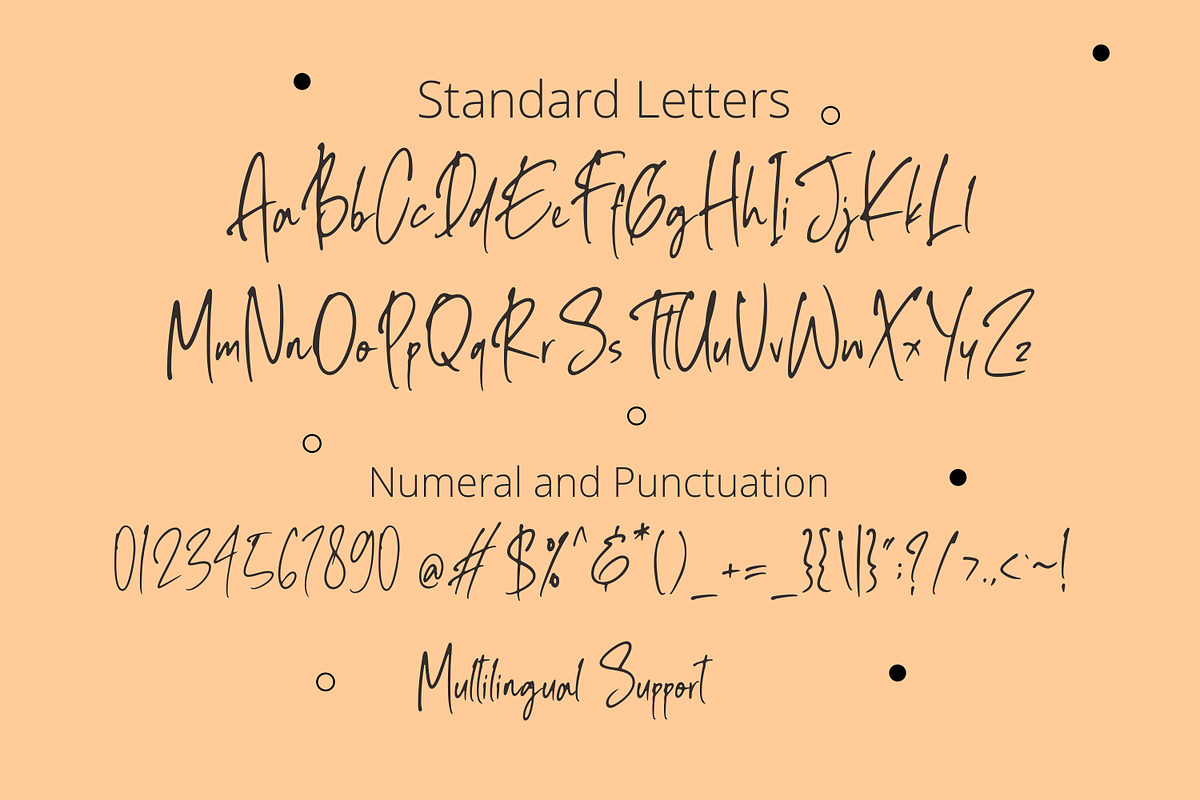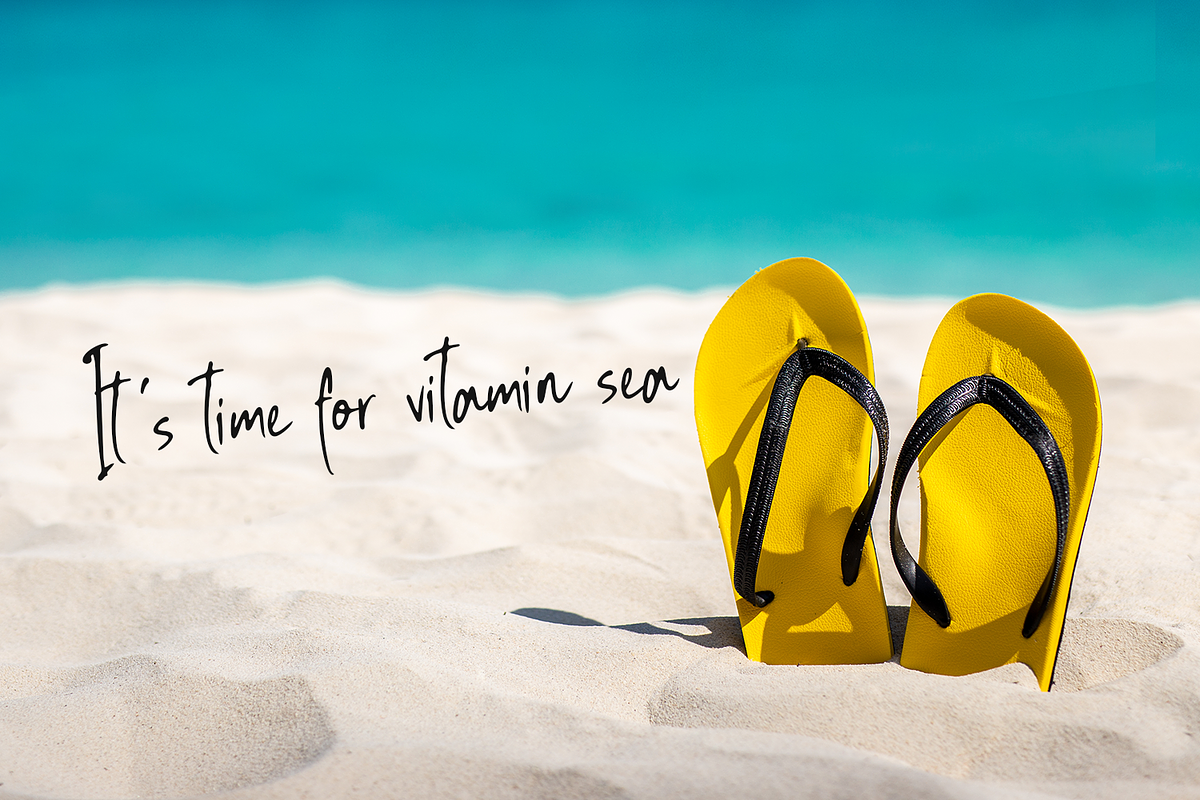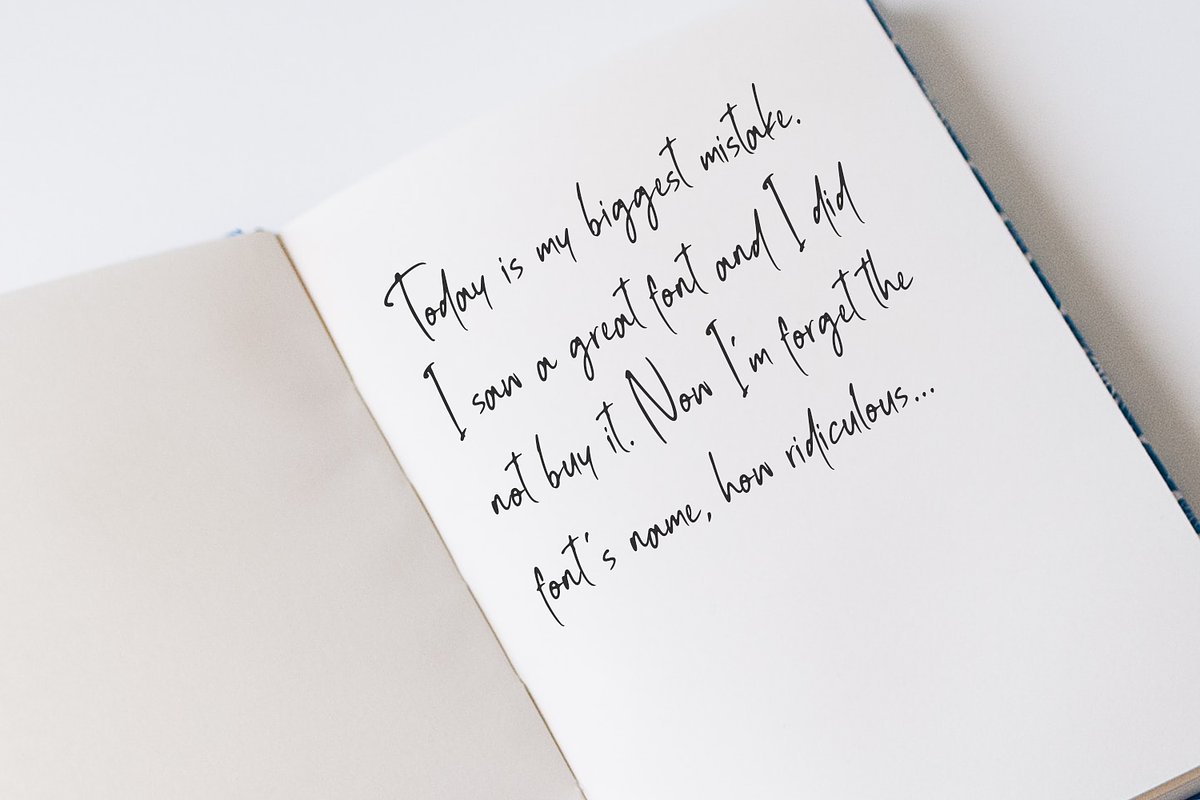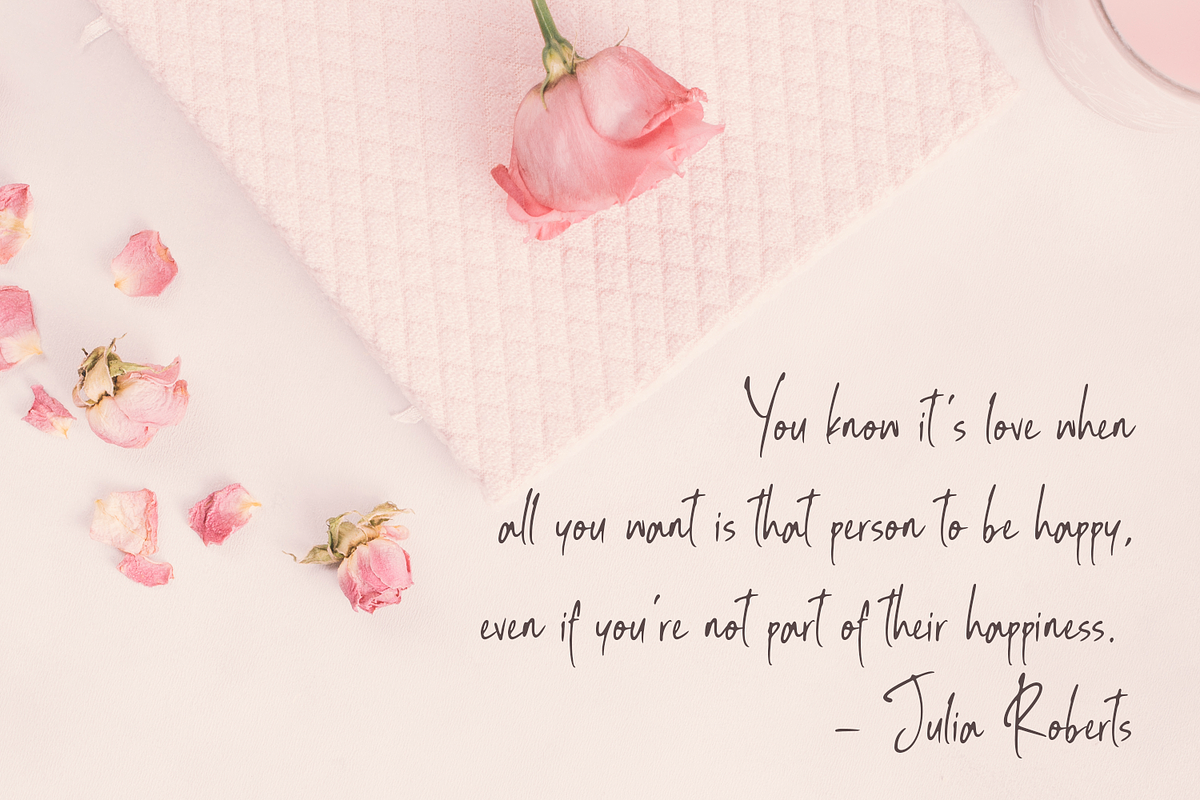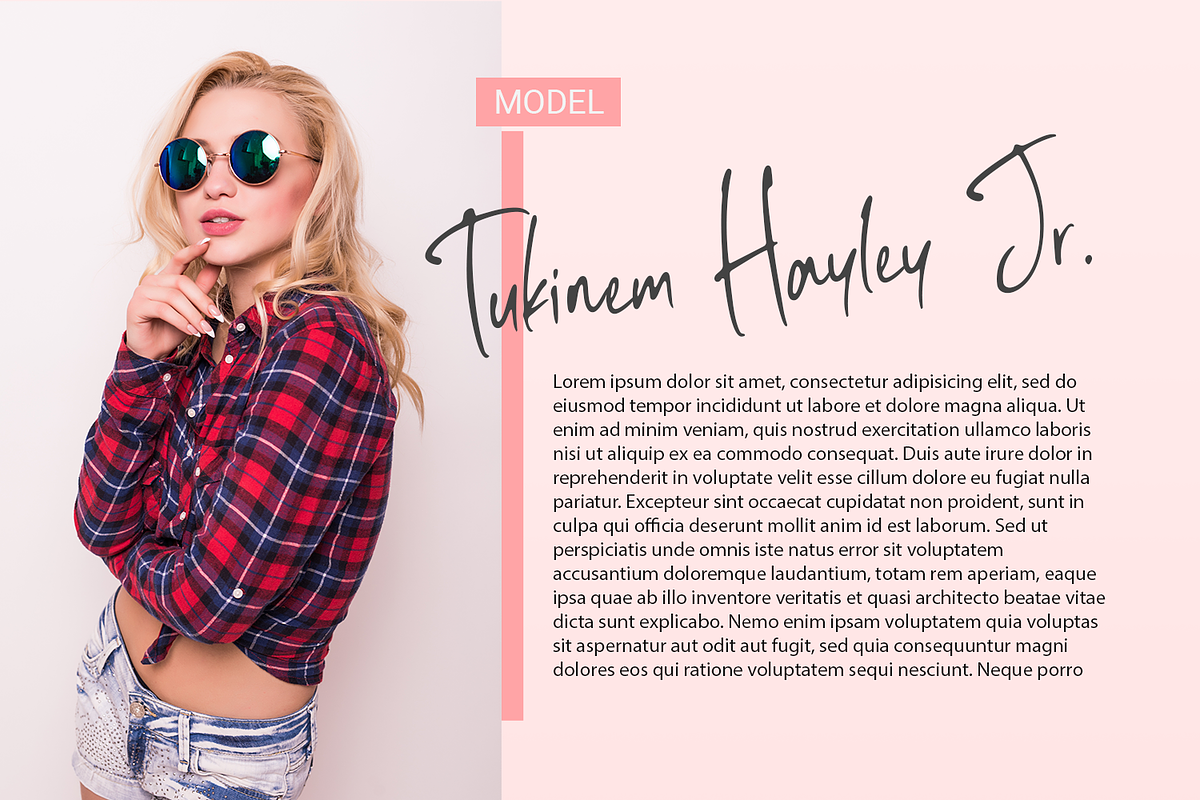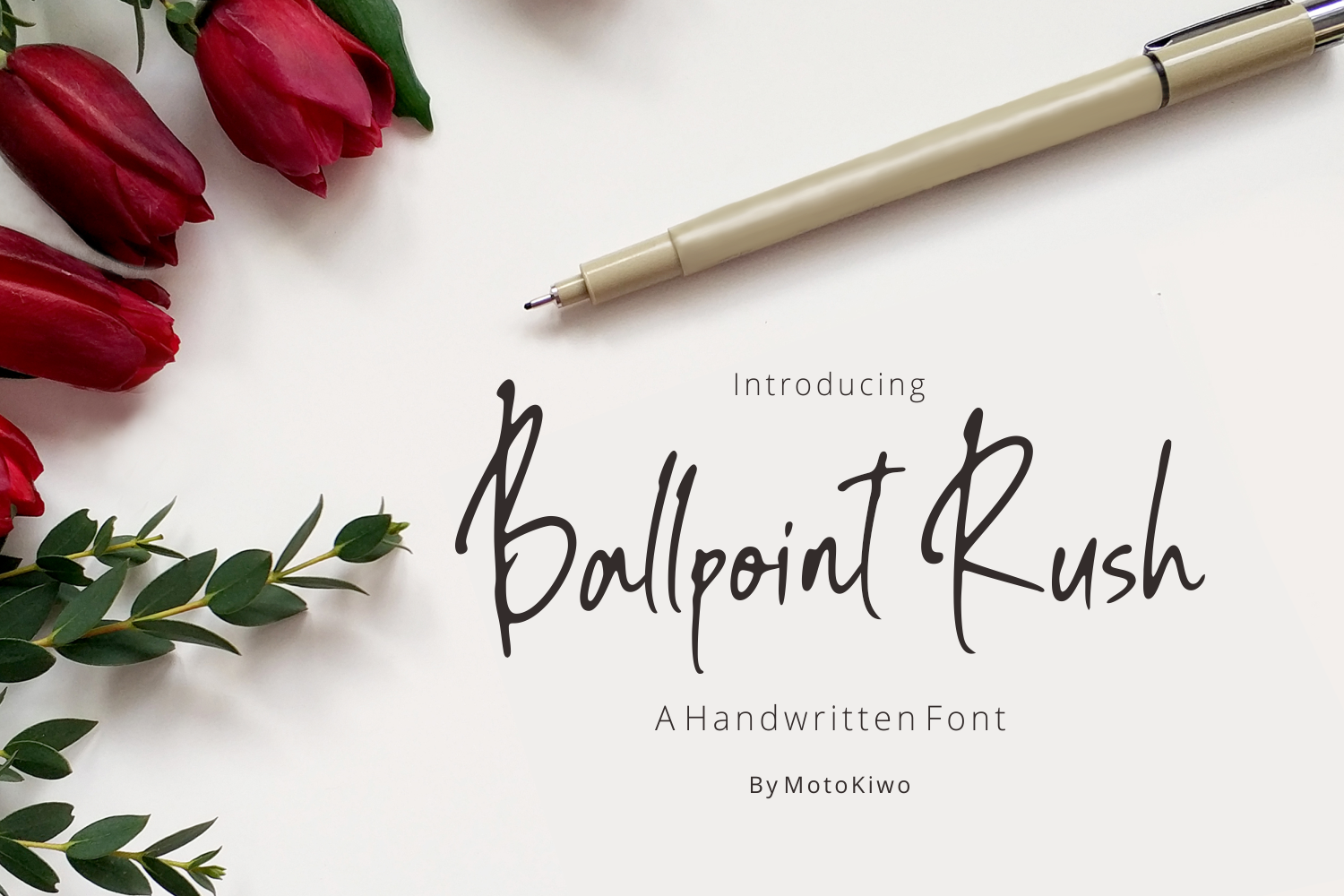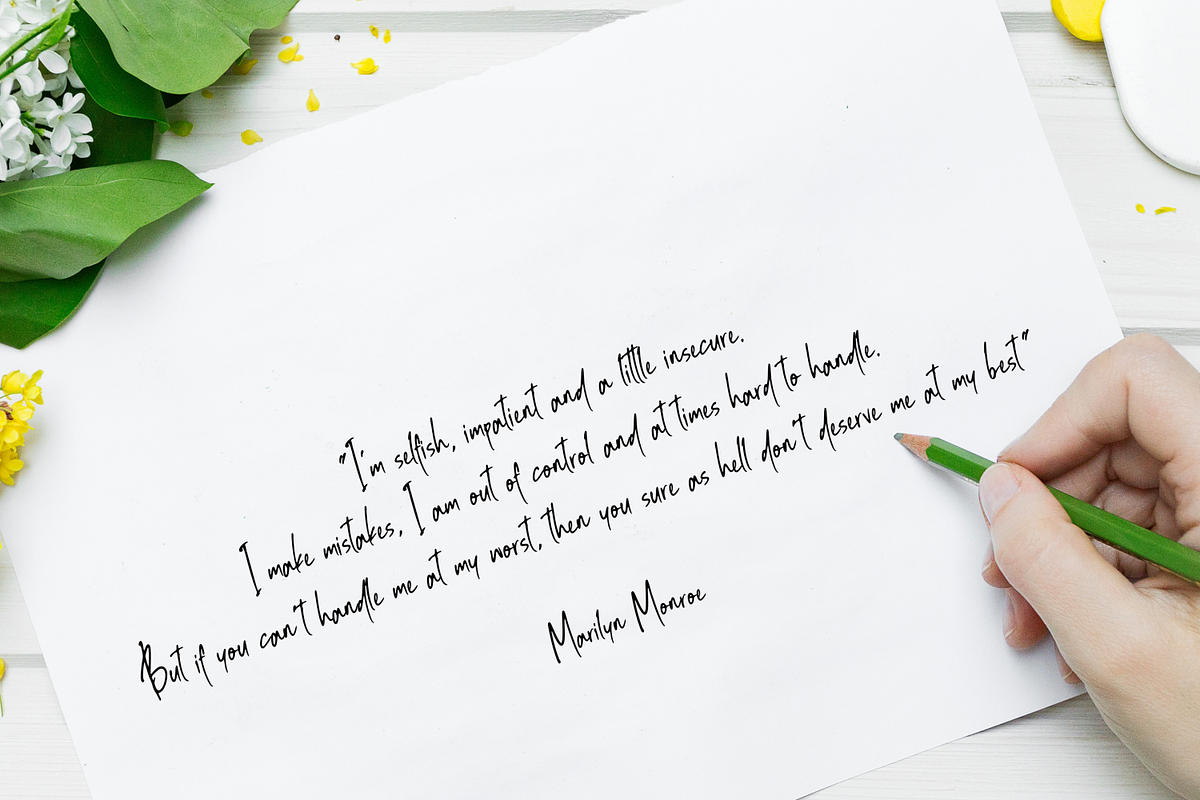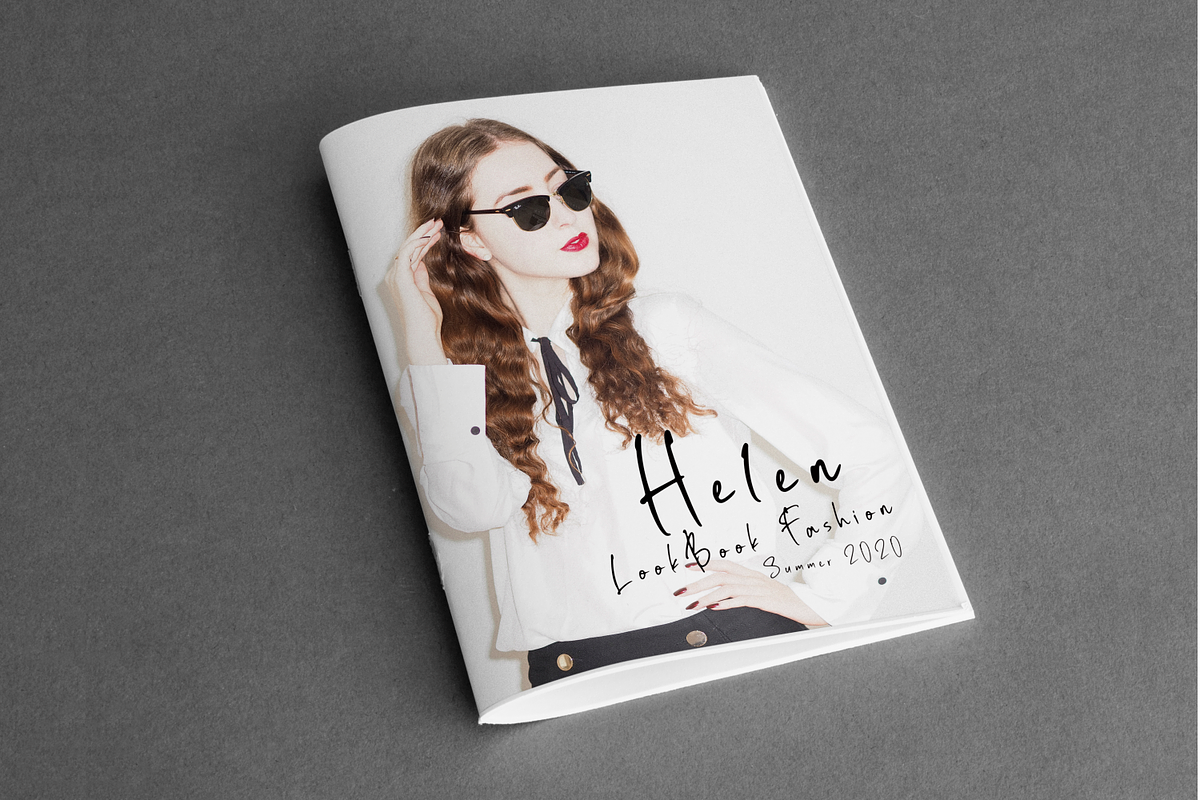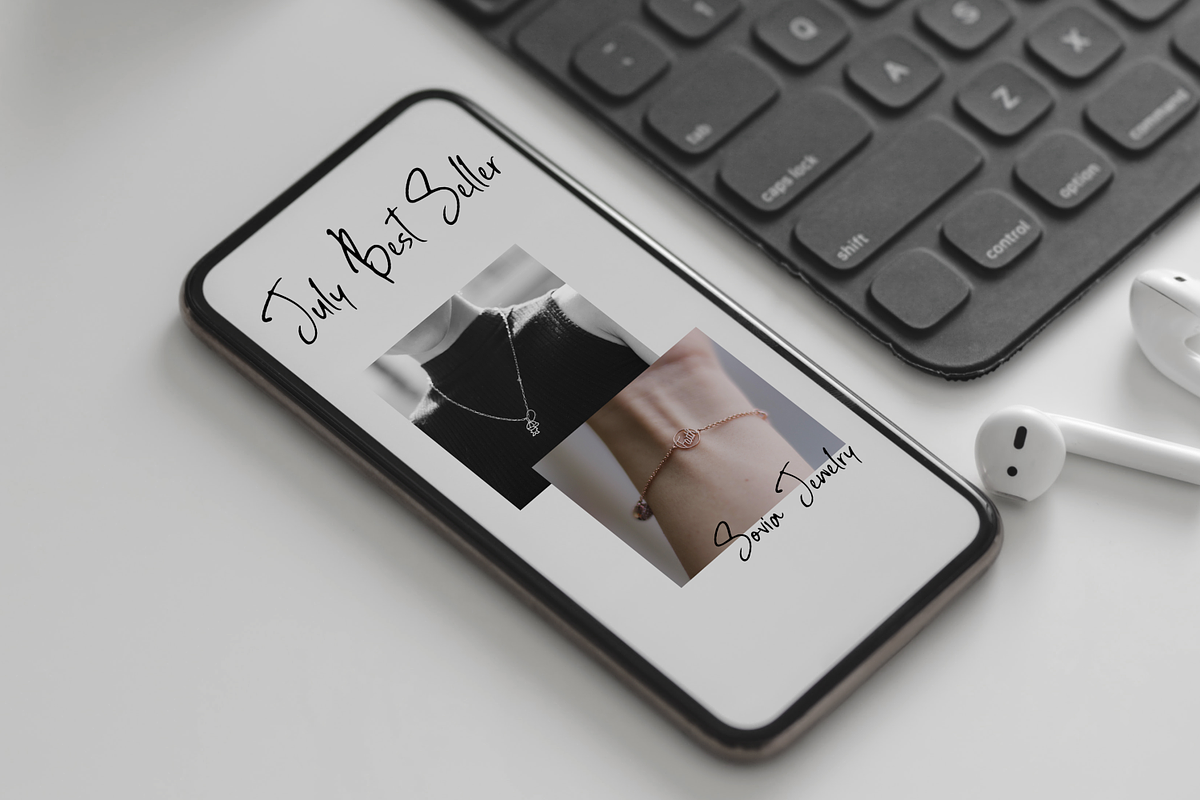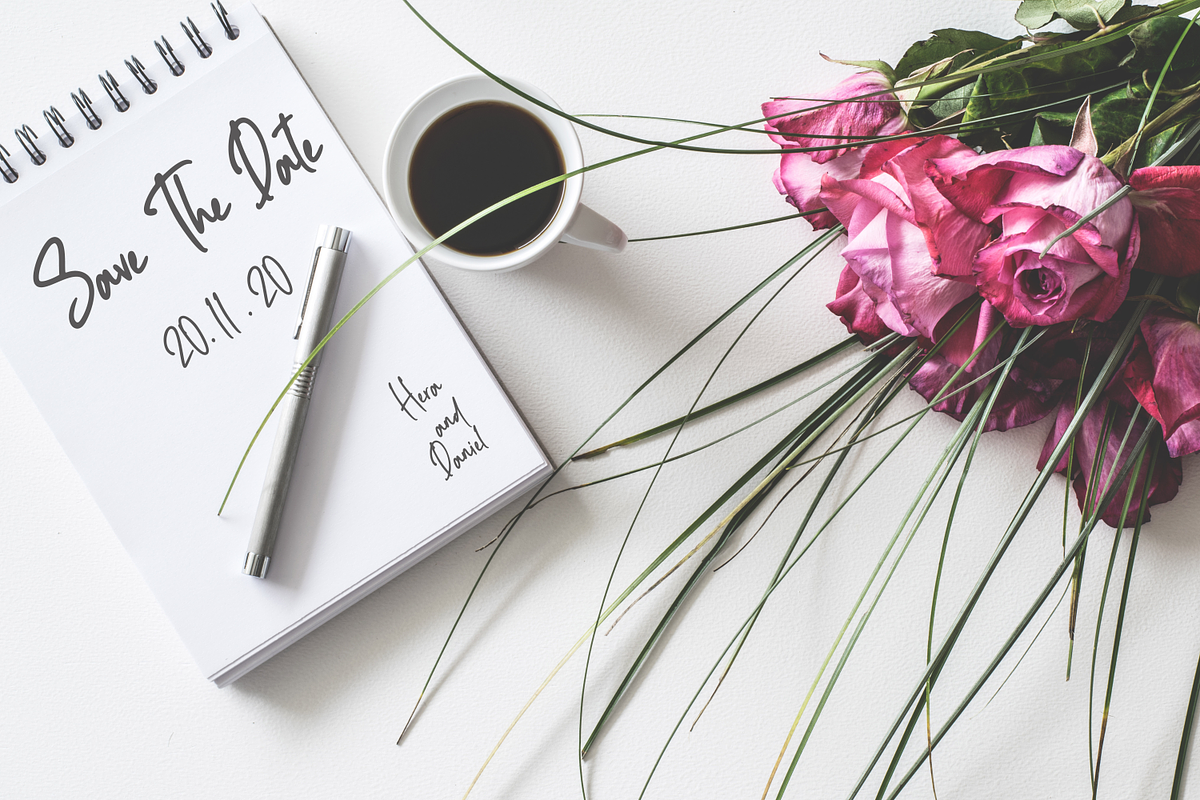
Ballpoint Rush - Handwritten Font
Ballpoint Rush is an organic and classy handwritten script font that crafted from pen strokes. The font very simple as a real quick writing with a pen. It's great for chic and elegant projects such as fashion branding, casual notes text, signature, song lyric, and many more.
- Standard Latin Multilingual Support